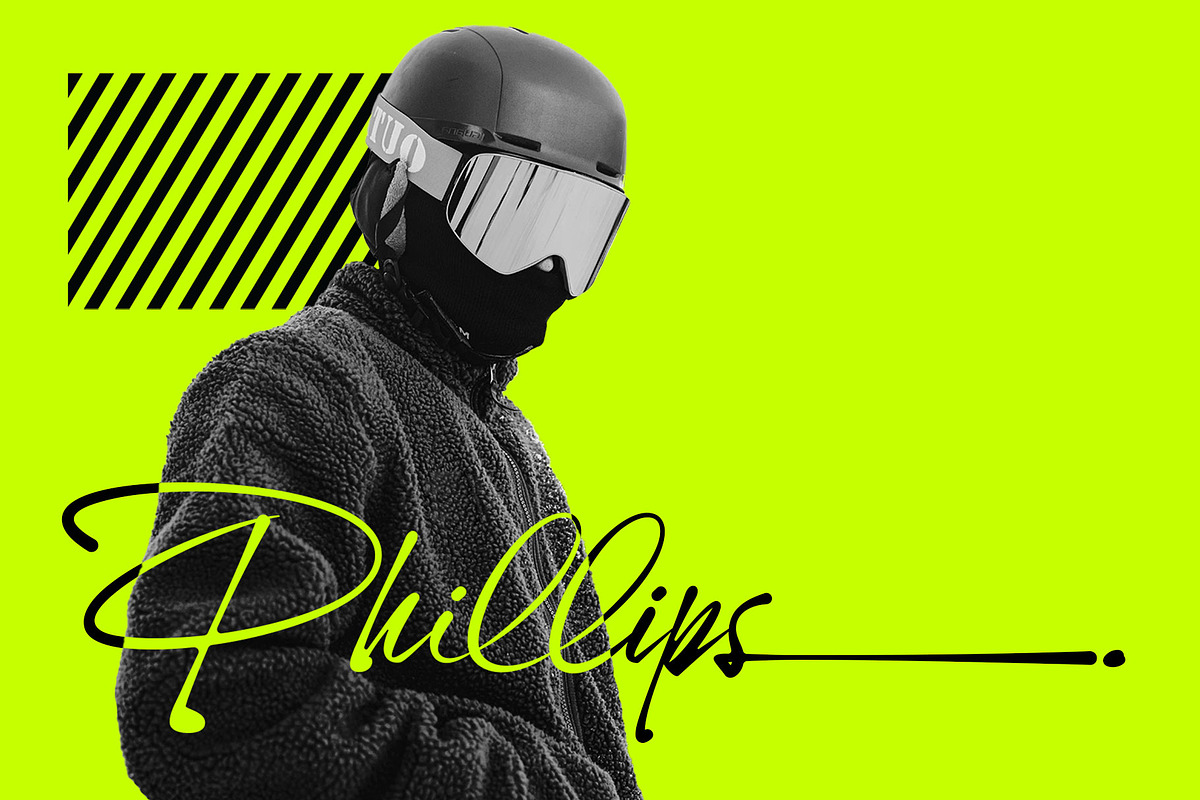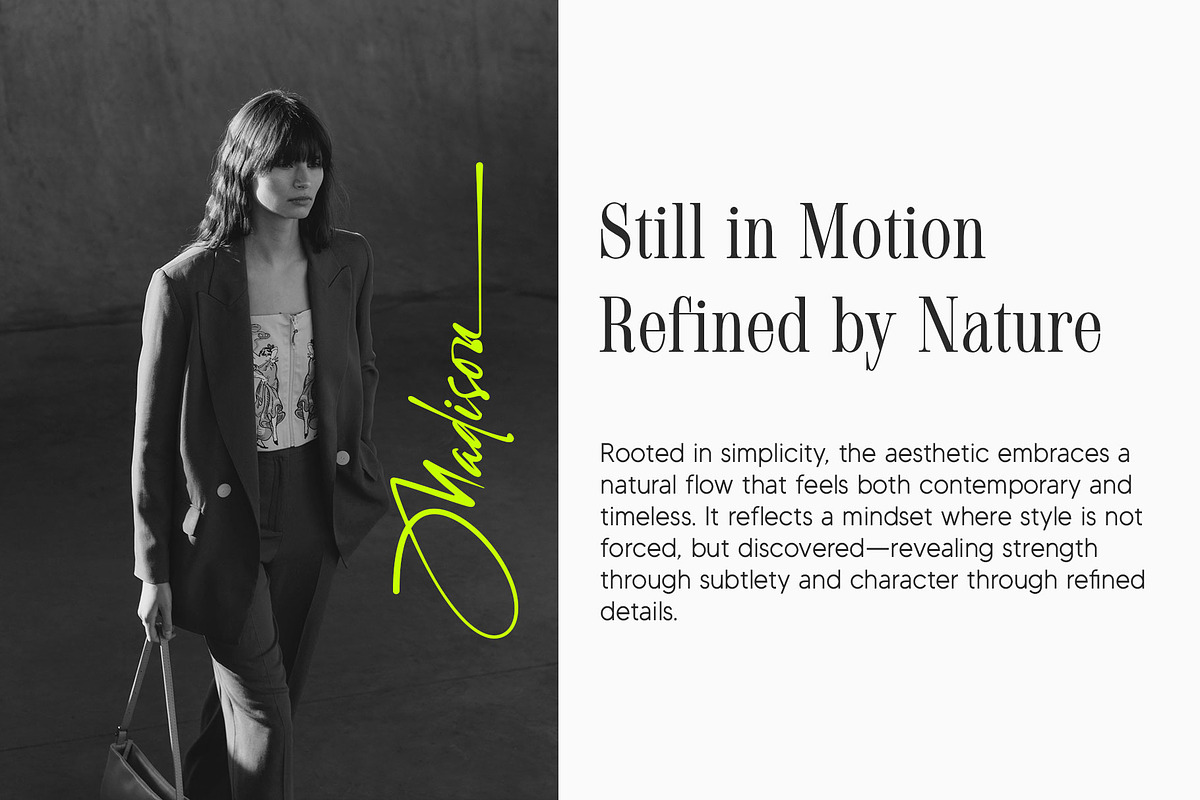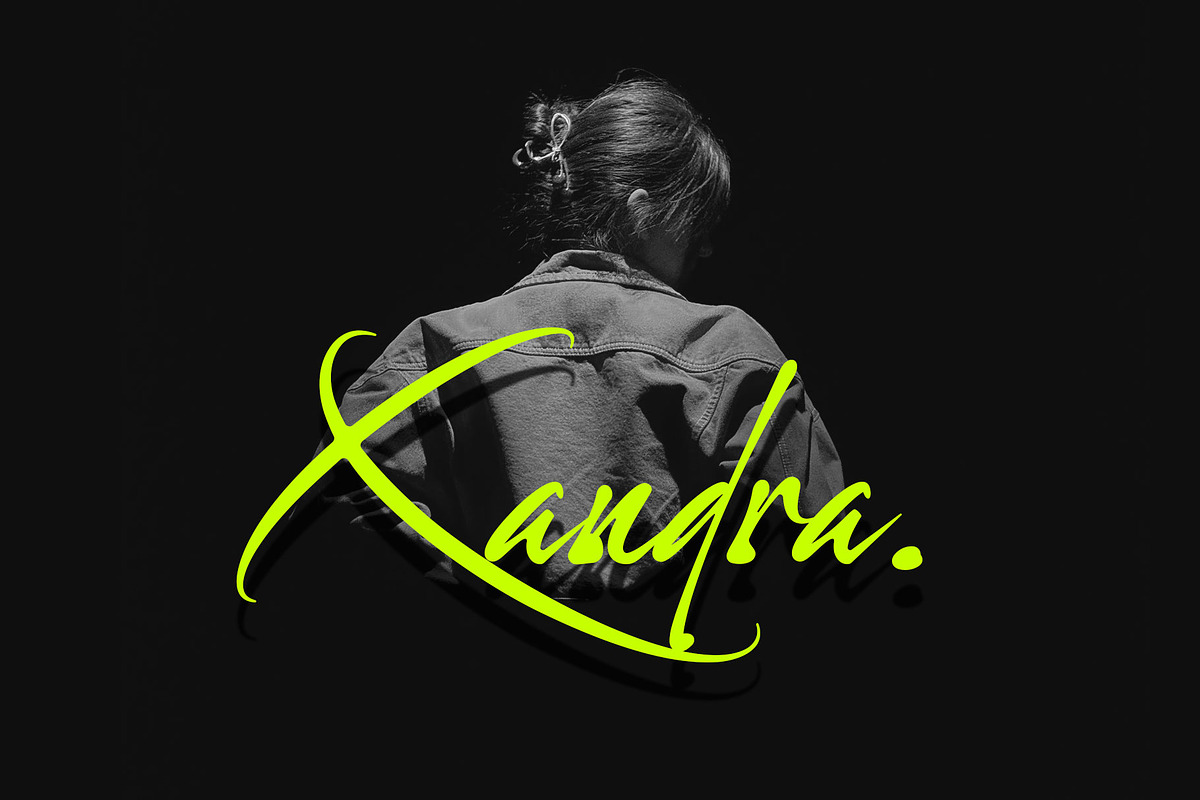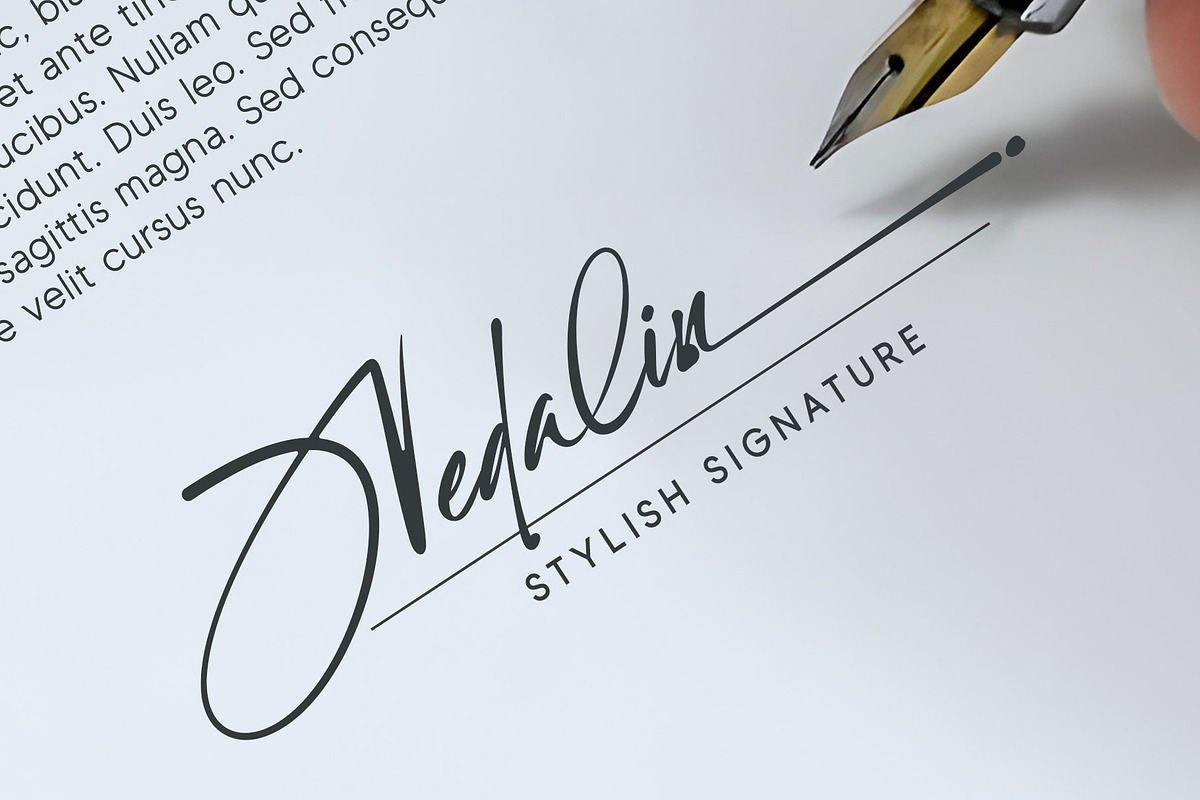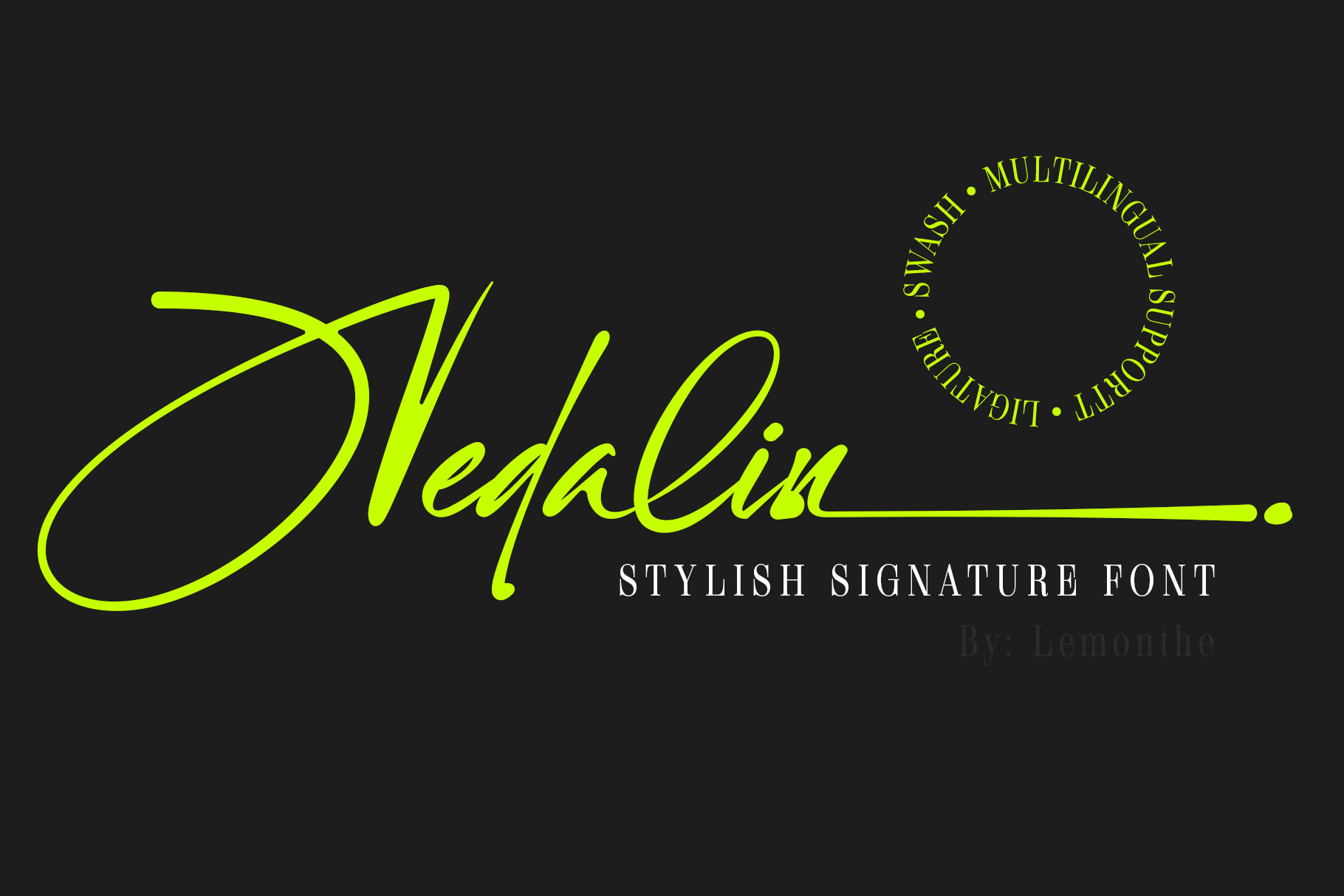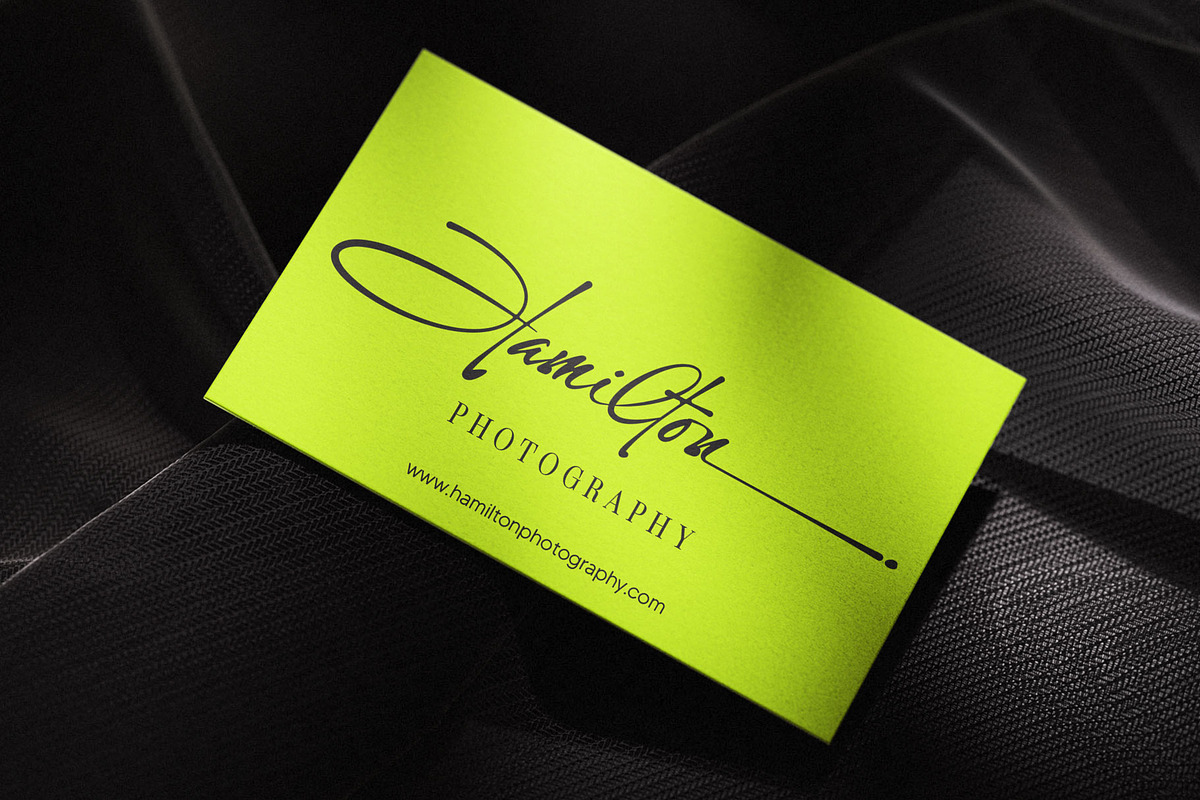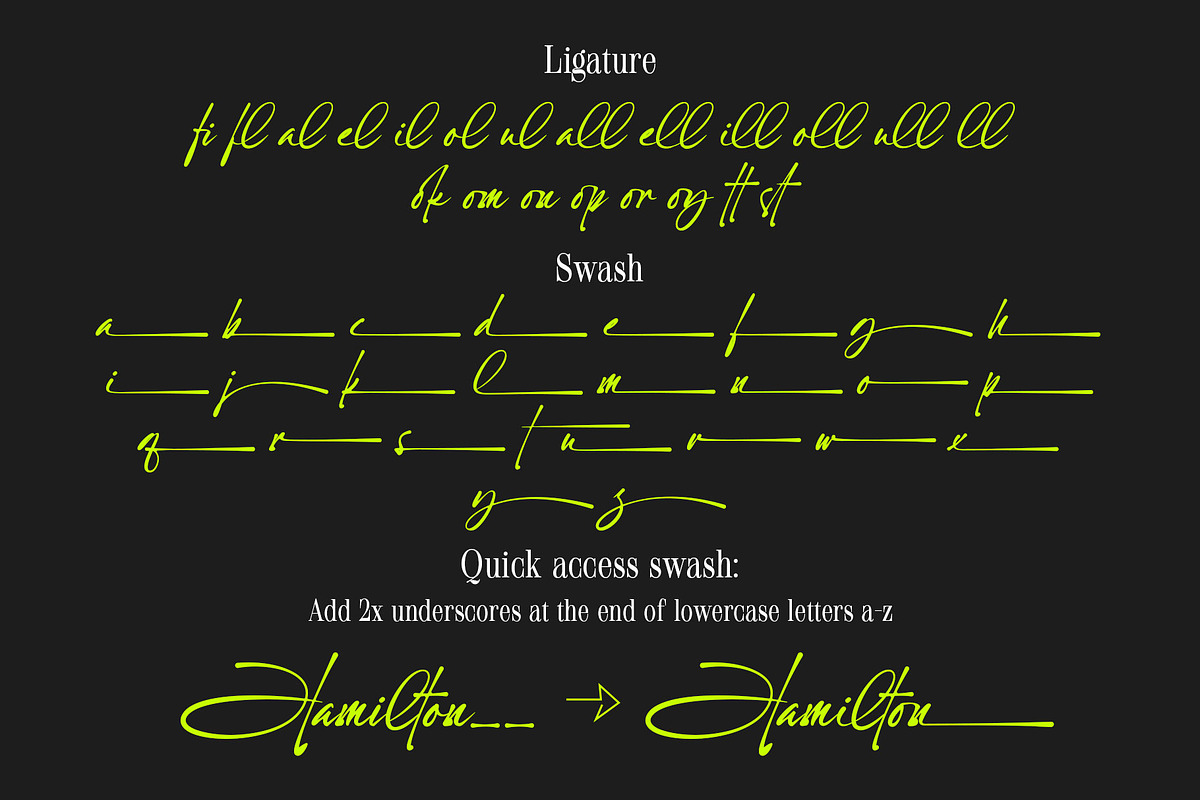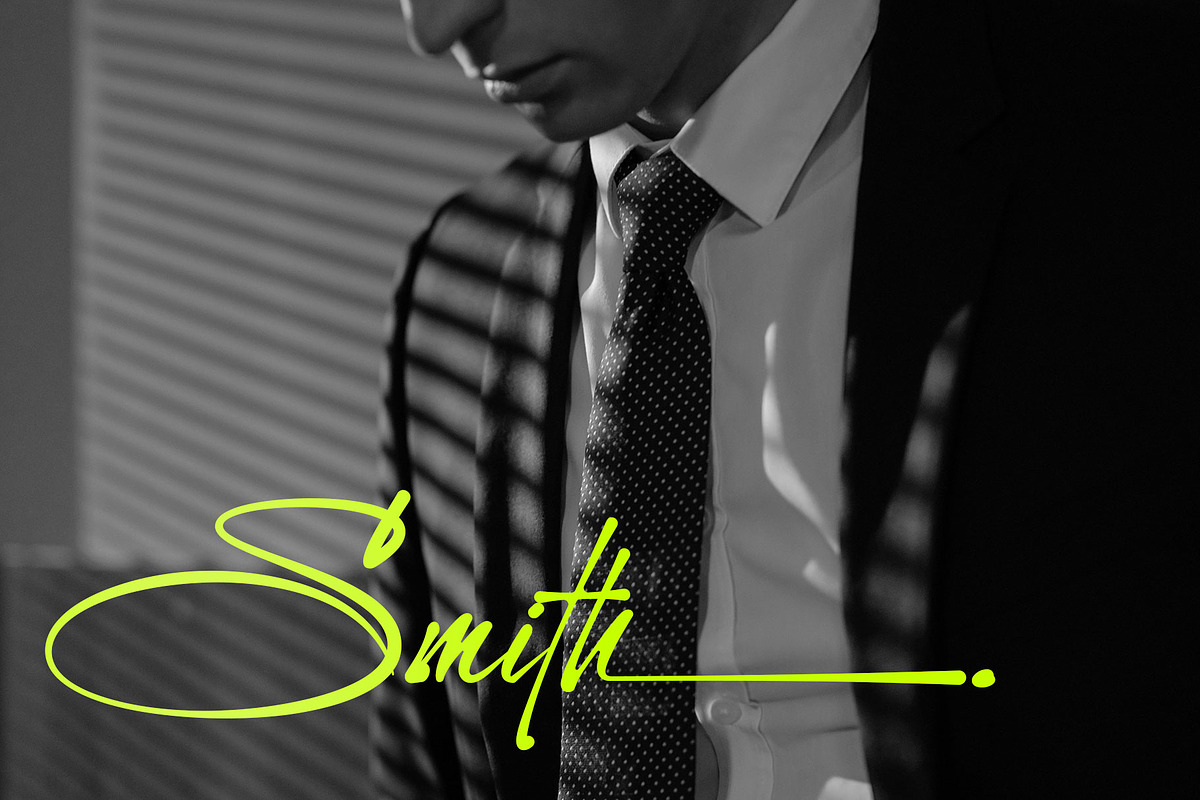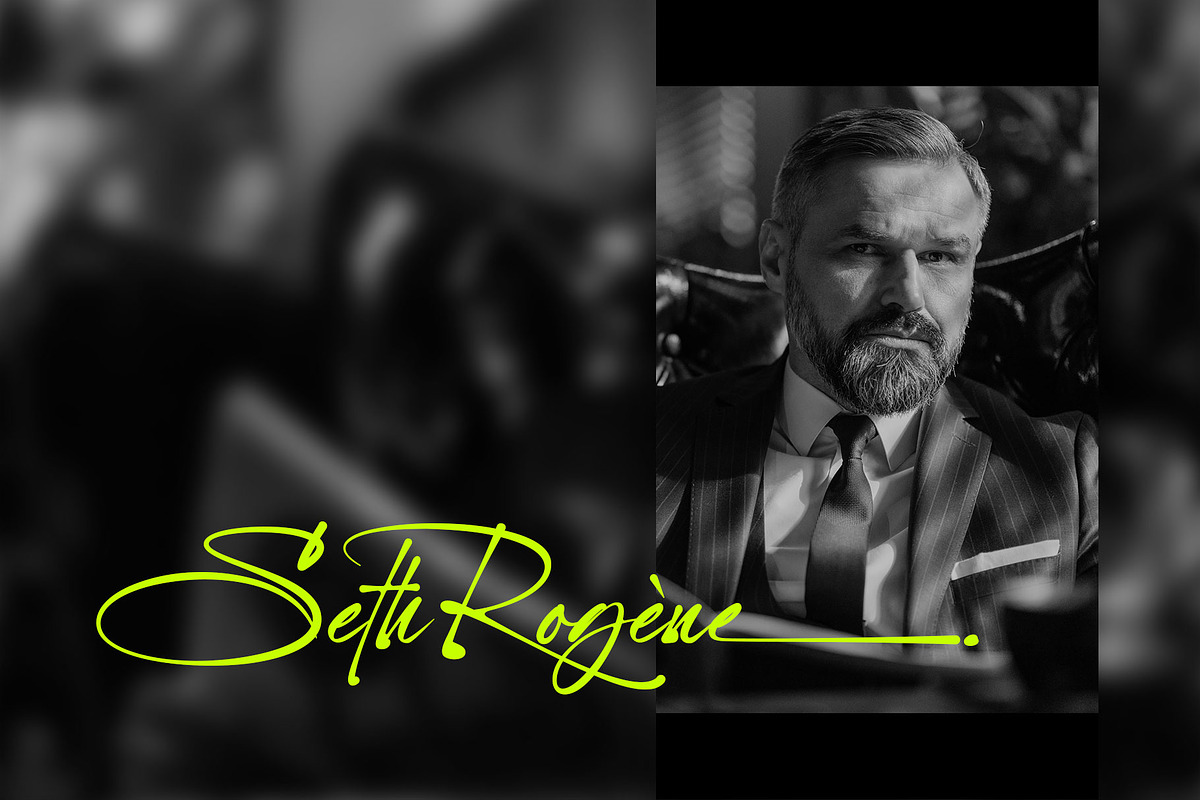
Nedalin | Signature Font
Nedalin is a signature-style font with a modern handwritten look that features a bold, expressive, and natural character. Each stroke flows smoothly like an authentic signature, creating an organic and stylish feel. Nedalin works well for logos, branding, packaging, headlines, social media, and many creative projects that need an elegant yet casual touch. With swash and ligature features included, this font offers designers flexibility to create strong, unique, and elegant visual identities.
Quick access swash
- Add 2x underscores at the end of lowercase letters a-z